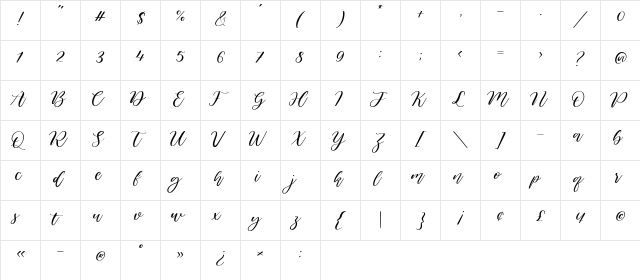
Cuties Peaches Regular
| Designer | Balpirick Studio |
Design Context for Cuties Peaches Typeface
Cuties Peaches is a composed and adaptable typeface that performs quietly and consistently across a wide range of design contexts.